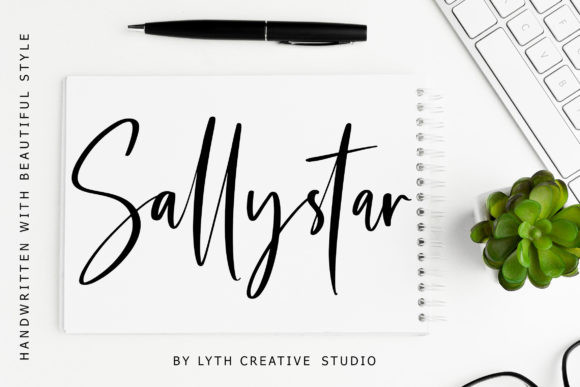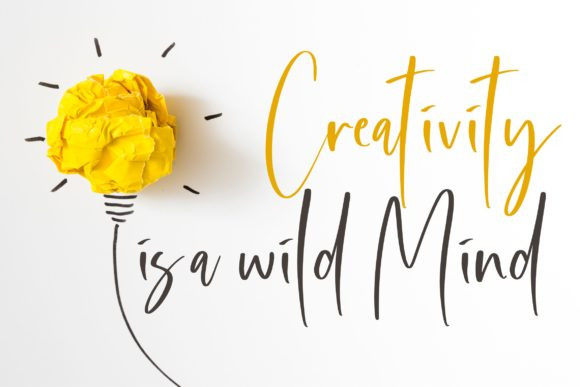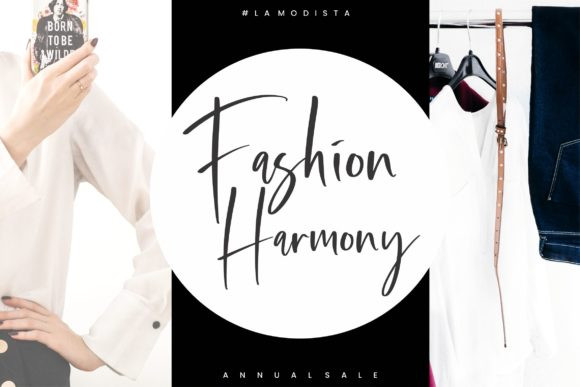
Sallystar Font
Sallystar FontSallystar is a sophisticated handwritten font with a genuine style.
Sallystar is perfect for branding projects, logos, wedding designs, social media posts, advertisements, product packaging, product designs, label, and so much more.